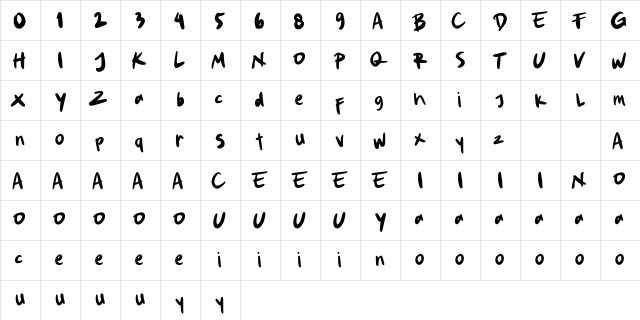
Stickids Regular
Design Context for Stickids Typeface
Stickids trades formality for fun, with bouncy, characterful letterforms that bring warmth and energy to any project.
Font Pairing: Pairs well with a rounded or humanist sans for body copy, maintaining the friendly tone without relying on Stickids to carry extended reading.
Pro Tip: Avoid using Stickids for long passages of text — it works best for headlines, labels, and short calls to action.